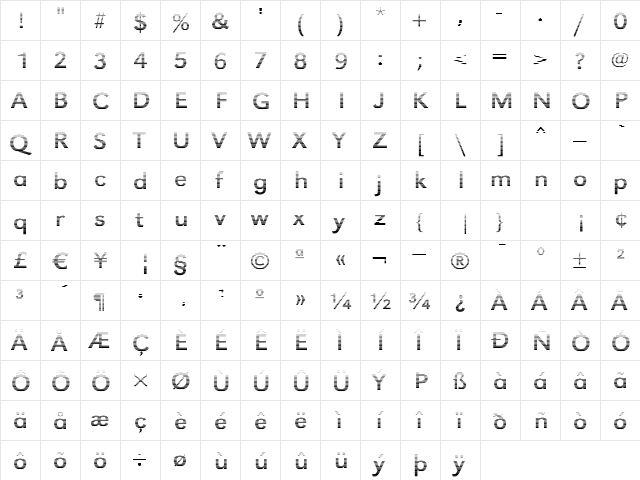
TomBeckerGradientE Regular Font Preview
TomBeckerGradientE Regular
Design Context for TomBeckerGradientE Typeface
TomBeckerGradientE is a composed and adaptable typeface that performs quietly and consistently across a wide range of design contexts.